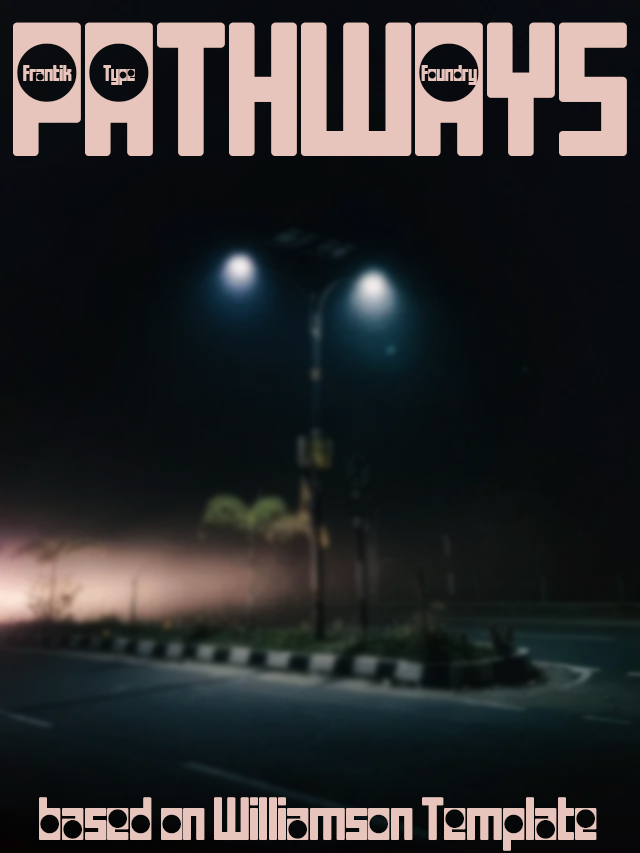
Very nice, but... I wish it had the circular exclusion areas incorporated into all the parts and elements that distinguish the contours for each  of the letter shapes. So all the partially enclosed whitespace area's in one way had that curcular easthetic trade as well.